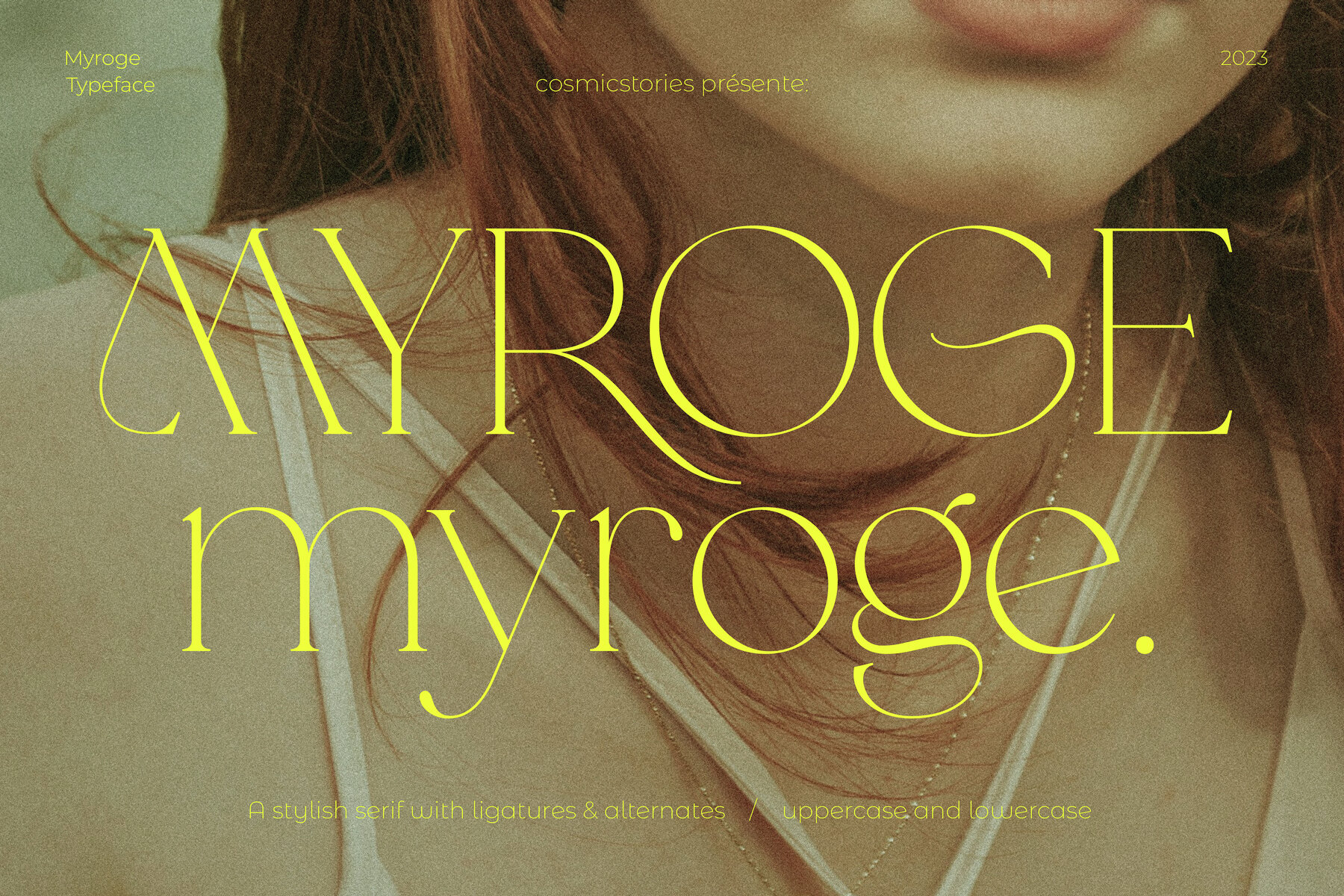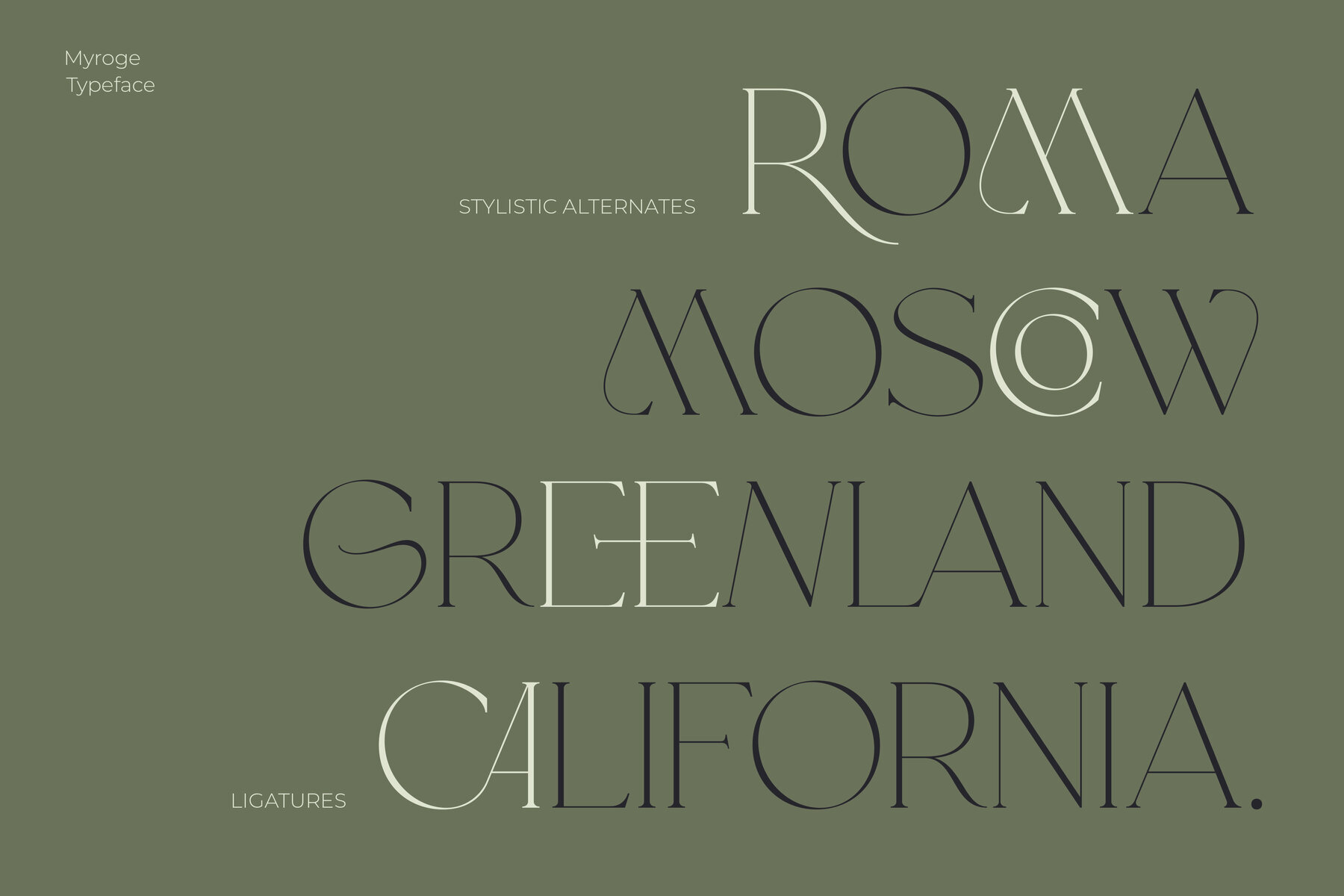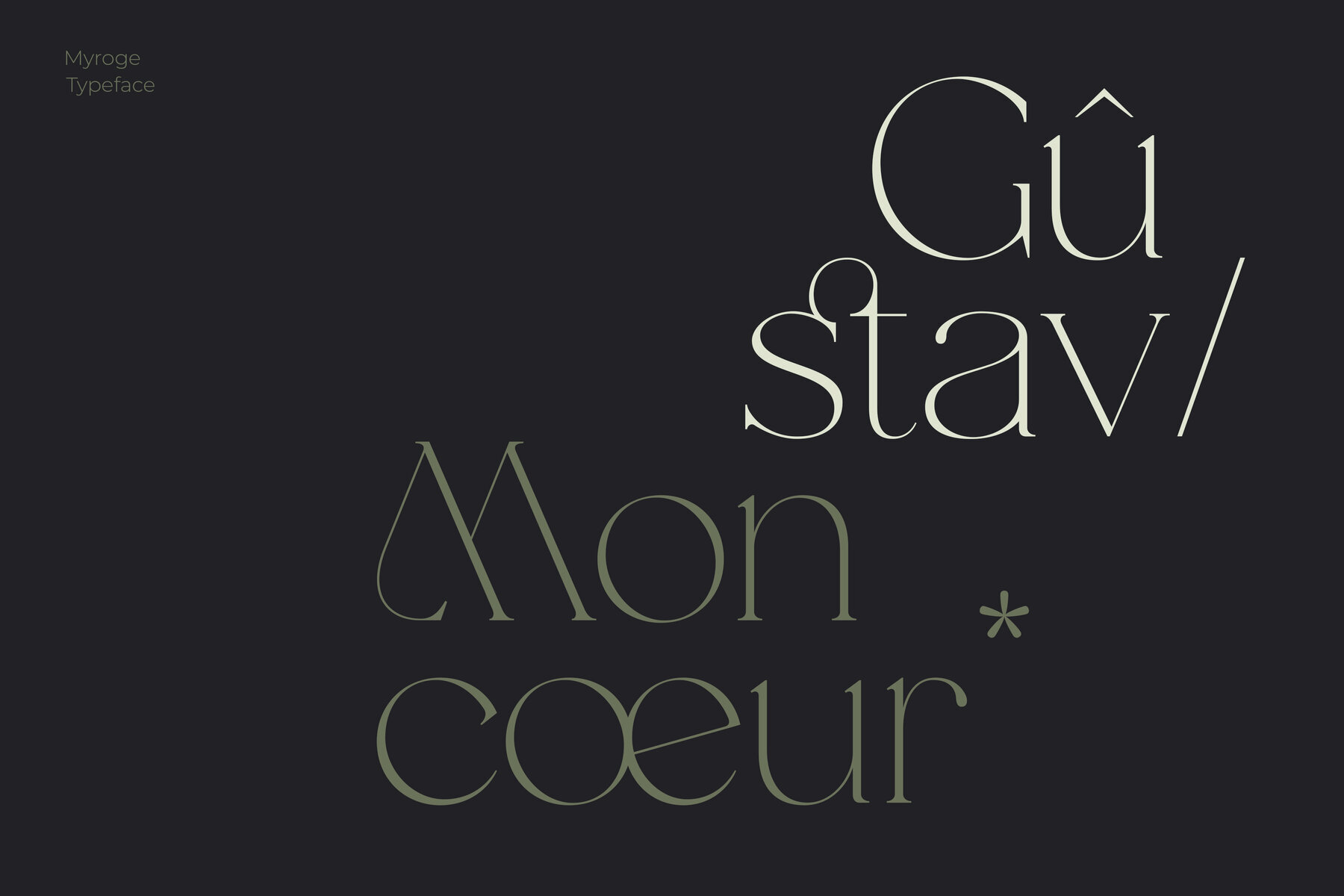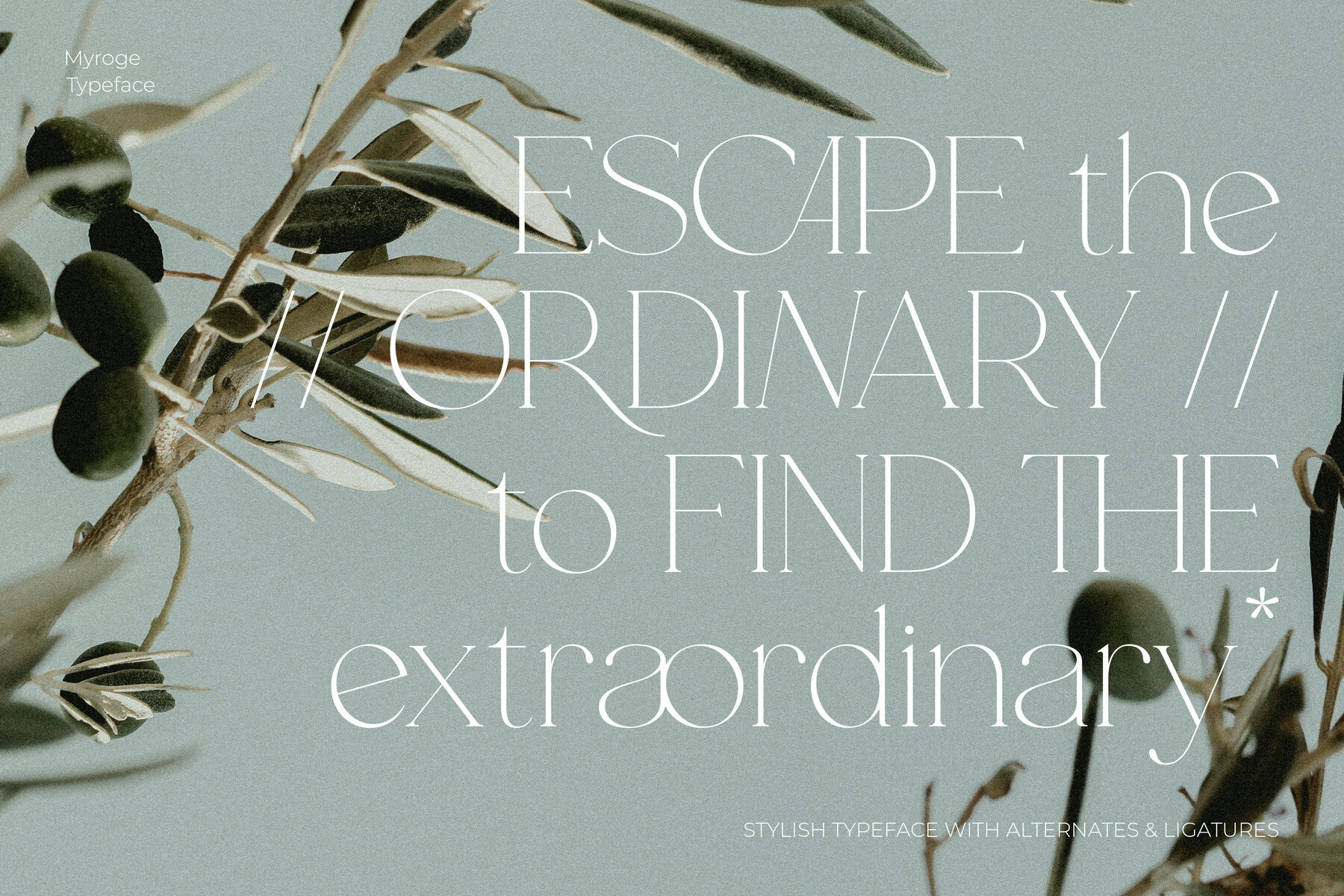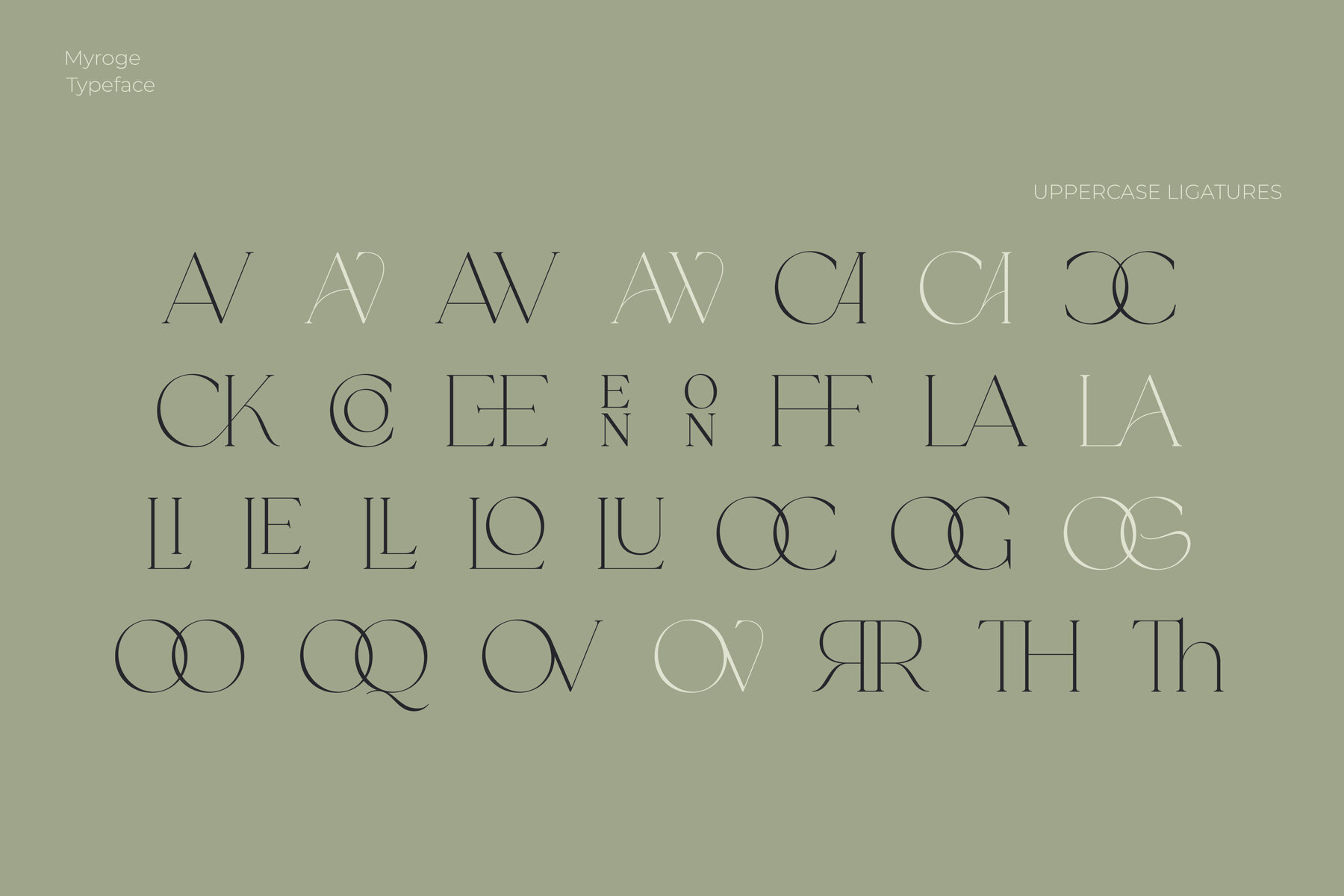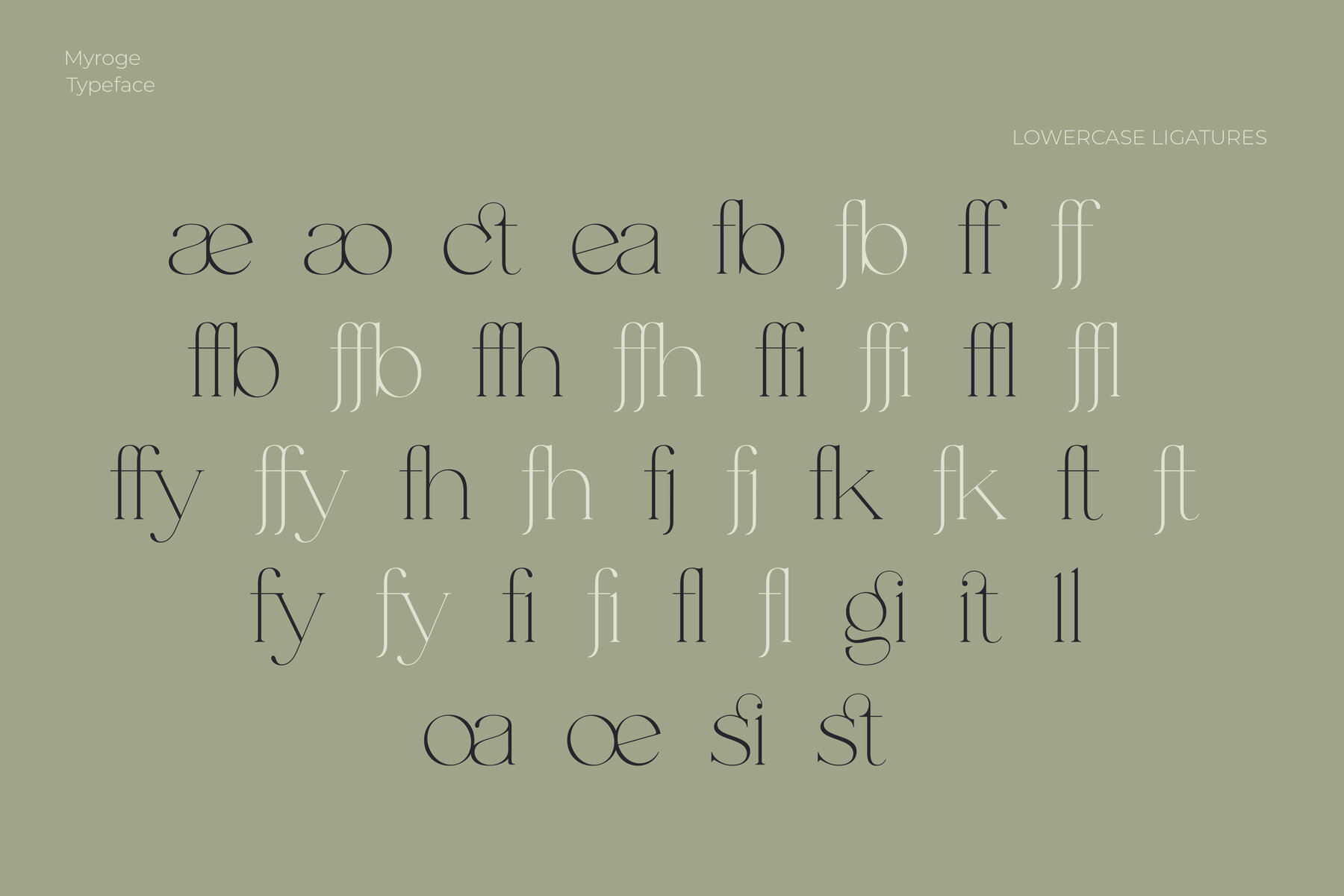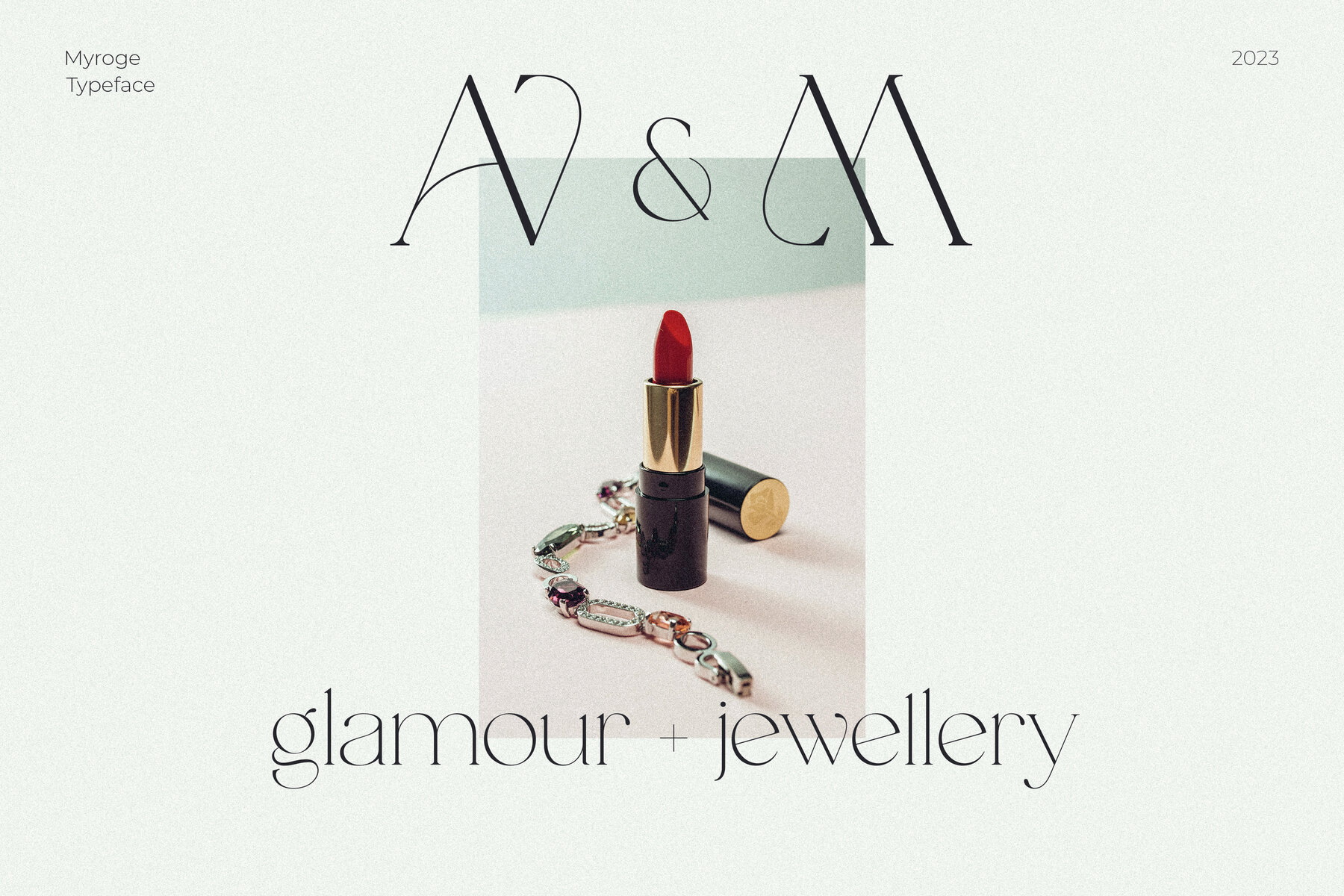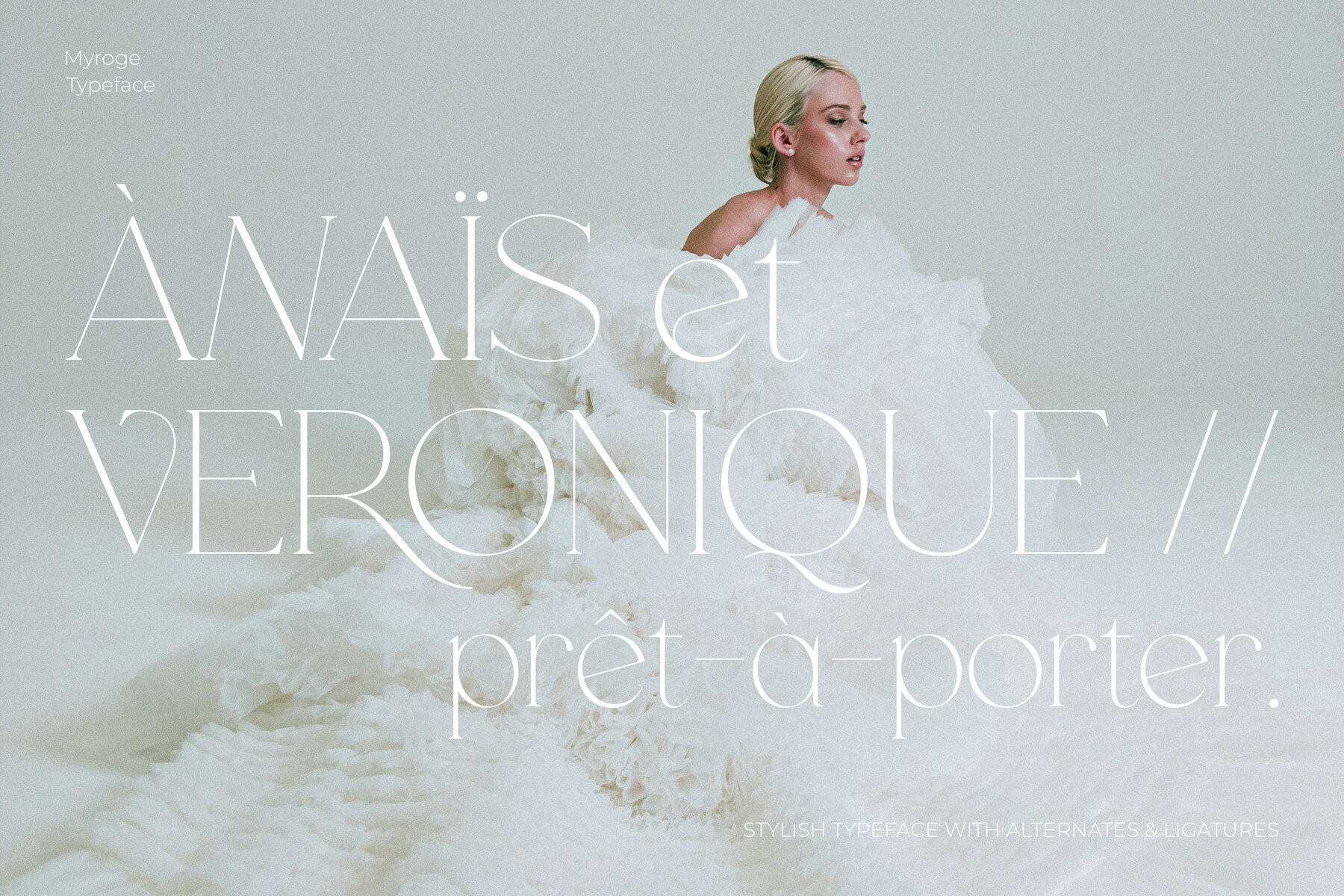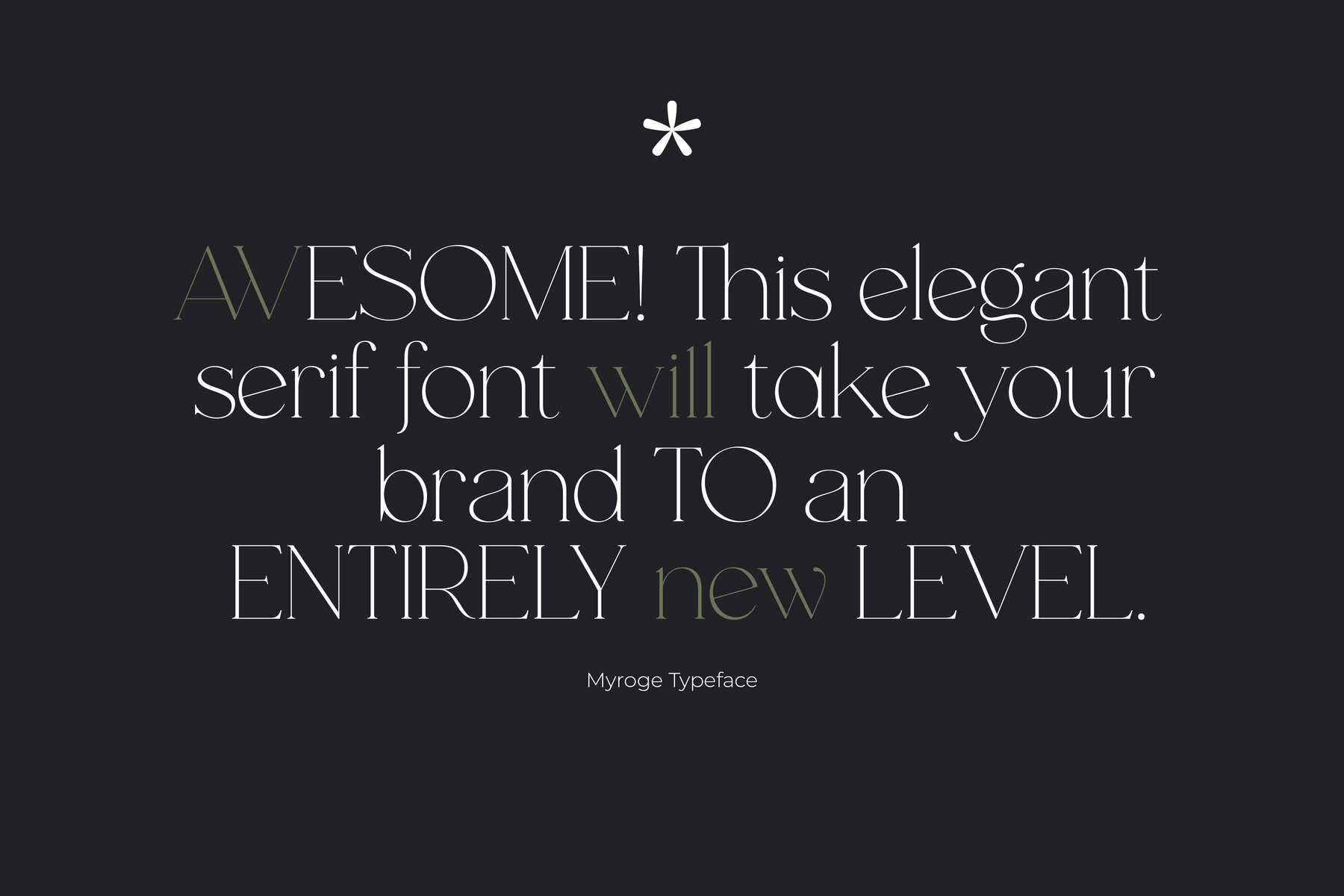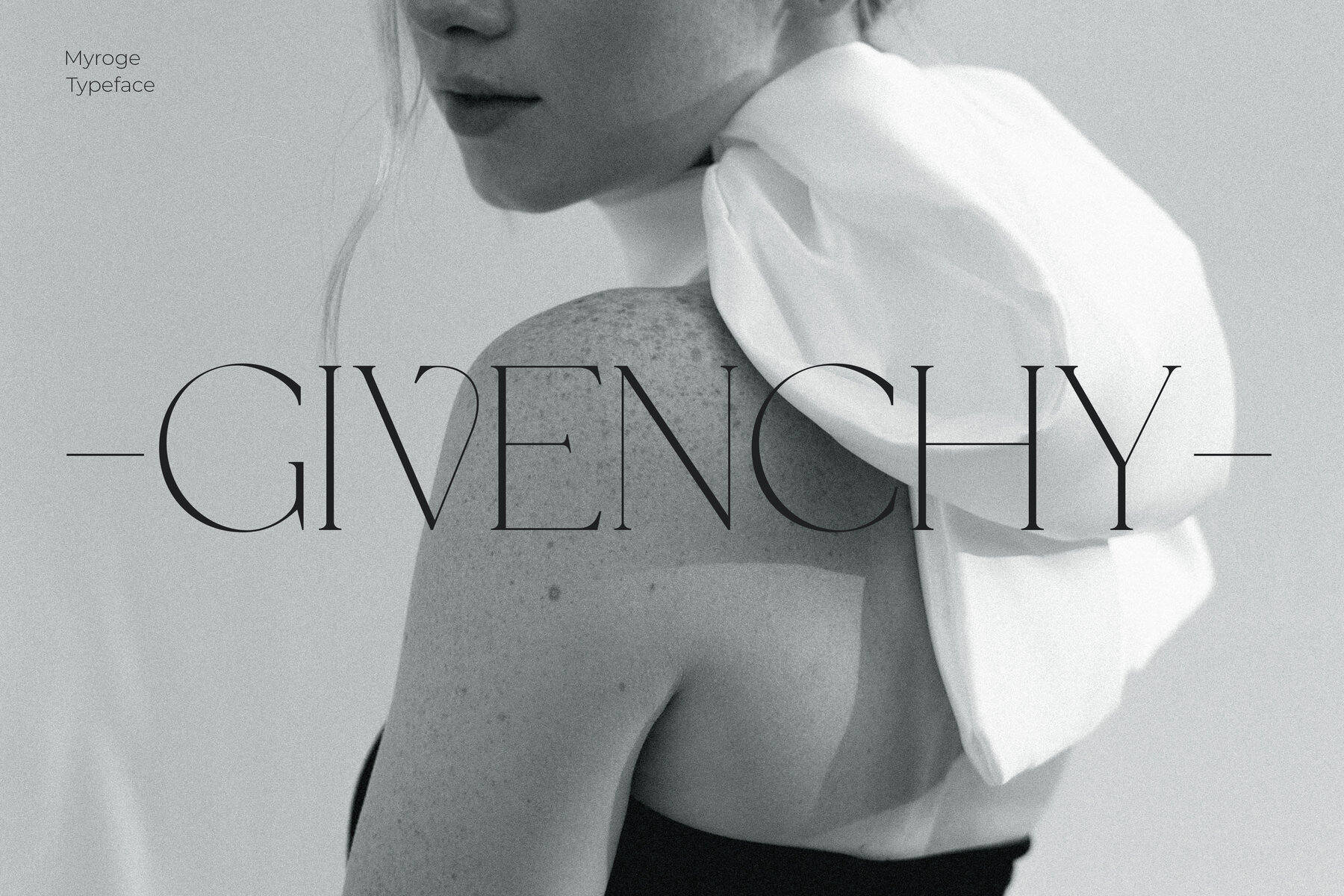
Myroge Font
MYROGE Regular
CosmicStories introducing MYROGE, an extremely elegant and fragile serif font with beautiful ligatures and alternate glyphs. This typeface includes multilingual support, and it will be perfect to upgrade your brand to an entirely new level. What's Included: To access the extra Opentype alternates and ligatures a software that supports Opentype features is required, such as Adobe Illustrator, Photoshop or inDesign. This typeface is perfect any project as logotype design, branding, cosmetic brands, wedding invitations, suite and stationery, greeting cards, , social media promo, quotes, banners and everything you can imagine!